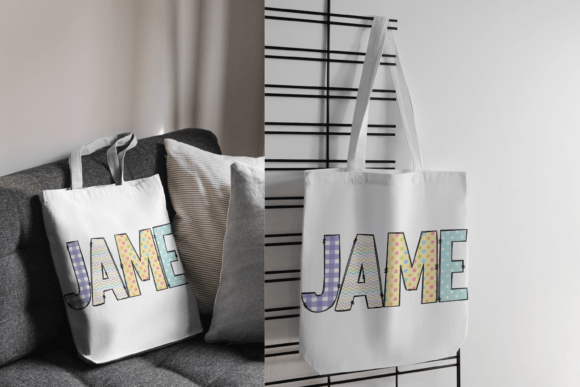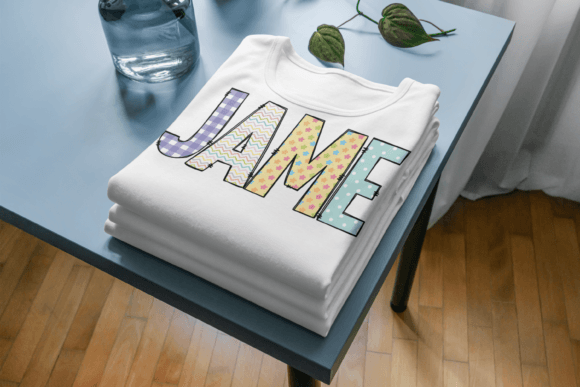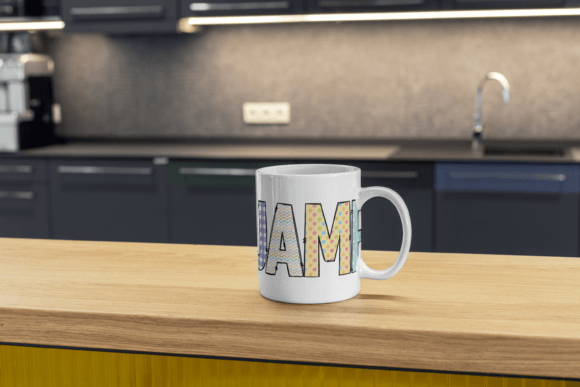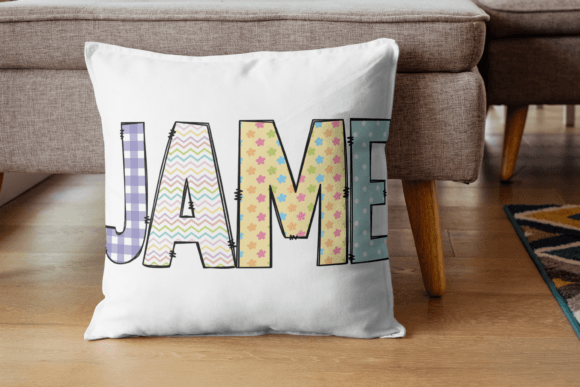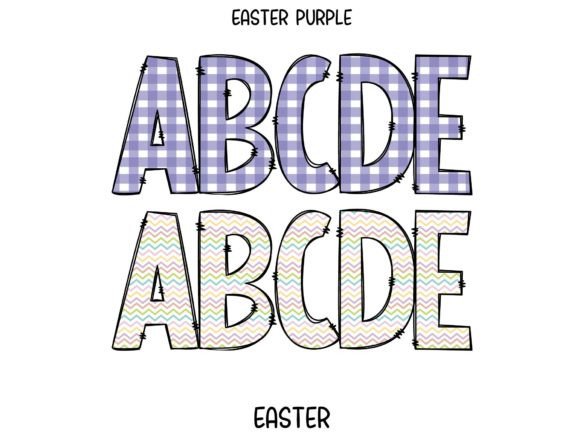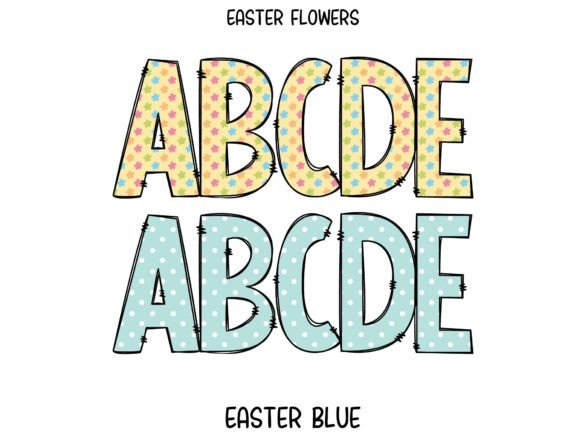
Easter Font: Add a Pop of Color to Your Designs
Easter is just around the corner, and what better way to celebrate than with a bold, fun, and attractive font that energizes your designs with vibrant hues? Look no further than the Easter Font, ideal for headlines, logos, and social media graphics. This unique and fun colored font is perfect for designers and crafters looking to add a touch of personality to their work.
A Range of Vibrant Colors at Your Fingertips
One of the standout features of the Easter Font is its range of vibrant colors. With this font, you can create a bold statement and make your designs truly pop. Whether you’re working on a project for Easter, a spring-themed party, or just want to add some color to your designs, this font has got you covered. From bright pinks and blues to sunny yellows and greens, the Easter Font offers a palette of colors that will add a fun and playful touch to any design.
The Easter Font is perfect for designers and crafters alike. Whether you’re creating social media graphics, logos, or headlines, this font is sure to make your designs stand out. Its bold and fun design makes it ideal for a range of projects, from Easter-themed crafts to spring-inspired designs. Plus, with its ease of use, you can quickly and easily add a pop of color to your work.
Enhance Your Designs with Easter Font
With the Easter Font, you can enhance your designs and add a unique touch. Its fun and colorful design makes it perfect for a range of projects, from Easter-themed crafts to spring-inspired designs. Whether you’re a designer or crafter, this font is sure to inspire your creativity and help you create stunning designs.
- Use the Easter Font to add a pop of color to your designs and make them truly stand out.
- Experiment with different colors and combinations to create unique and eye-catching designs.
- Pair the Easter Font with other fun and playful fonts to create a cohesive look.
The Easter Font is a bold, fun, and attractive font that is perfect for designers and crafters looking to add a touch of personality to their work. With its range of vibrant colors and ease of use, this font is sure to inspire your creativity and help you create stunning designs. Whether you’re working on an Easter-themed project or just want to add some color to your designs, the Easter Font is an excellent choice.
Get Ready to Hop into Fun with Easter Font!
So why wait? Get ready to hop into fun with the Easter Font! With its unique and playful design, this font is sure to bring a smile to your face and inspire your creativity. Whether you’re a designer or crafter, the Easter Font is a must-have for anyone looking to add a pop of color and fun to their designs.